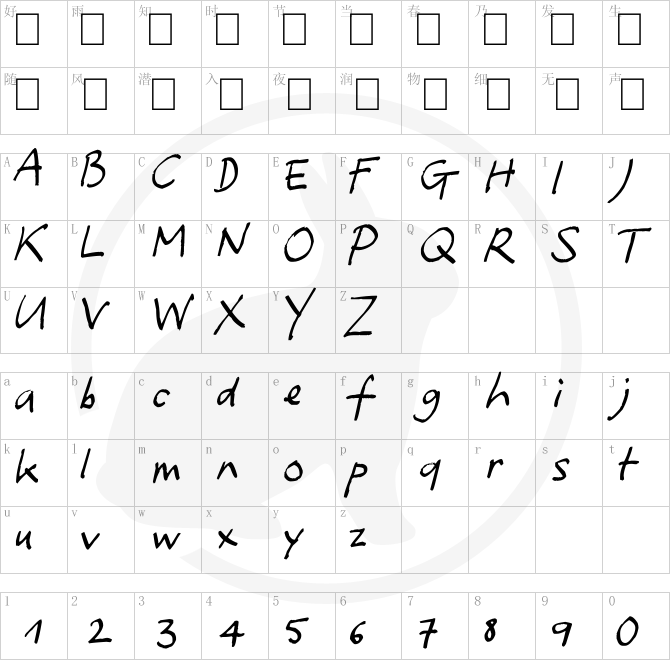
- Font Name:yafont
yafont.ttf is a very beautiful artistic font, yafont.ttf is widely used in the design and printing of various books and pictures,yafont.ttf has a strong visual impact,yafont.ttf is a commonly used font in newspapers, magazines and books, and is used in posters, e-commerce Poster design, store design, logo design, font design and other fields.yafont.